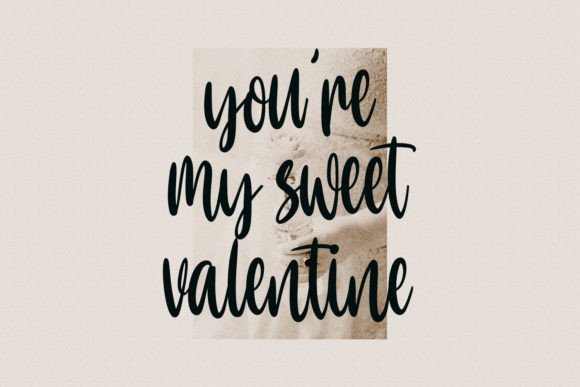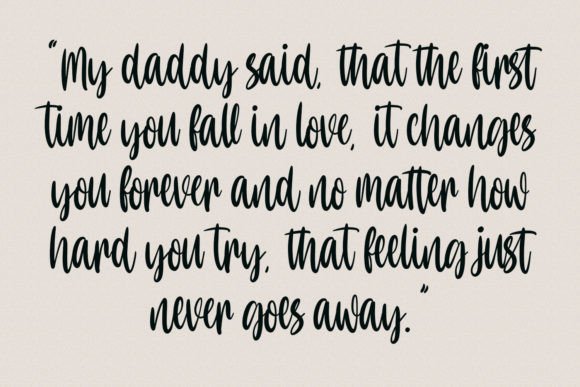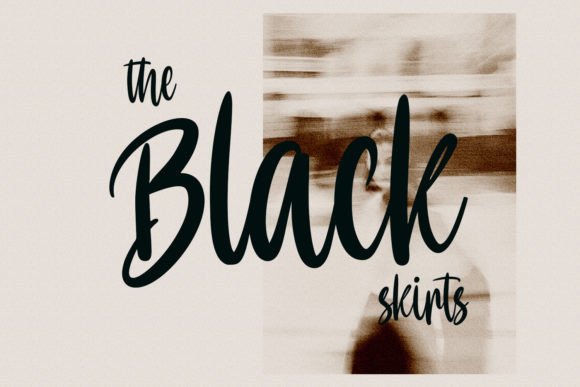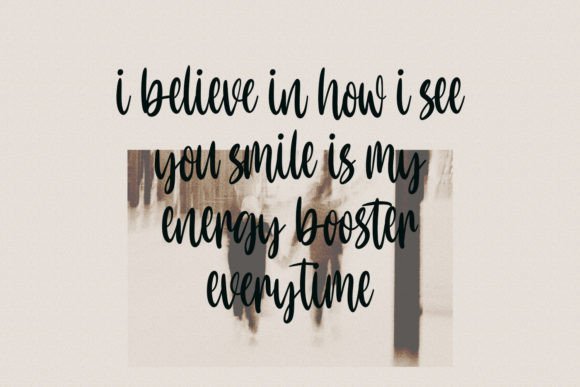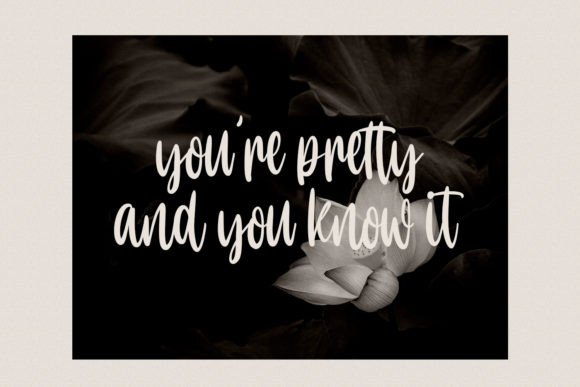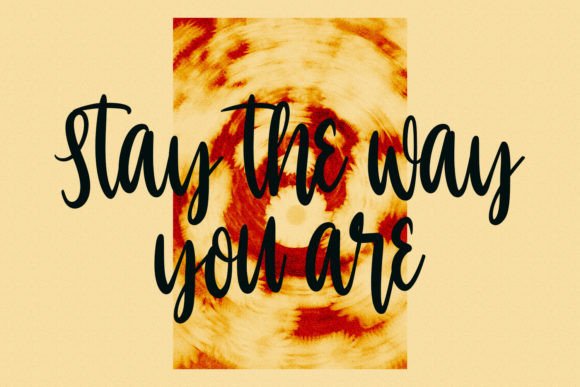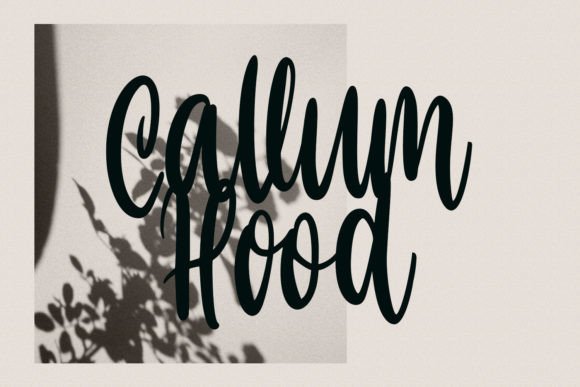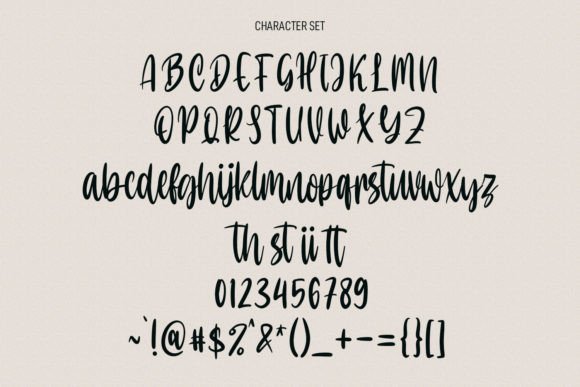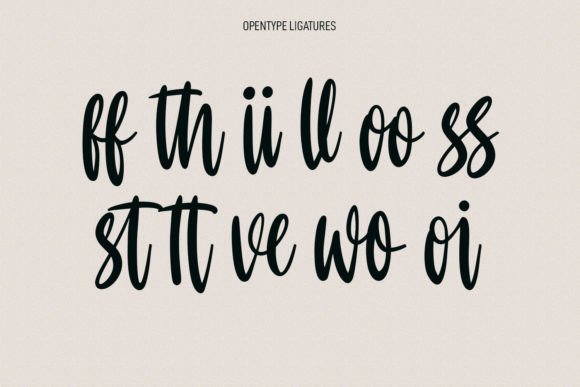
Olla Chester Font
About Olla Chester Font
“Olla Chester” is a modern and stylish handwritten script font that adds a touch of fashion and luxury to your design projects. With its elegant and fashionable appearance, this font is well-suited for creating chic and sophisticated designs, especially those targeting a luxury and feminine audience.
The font’s appeal lies in its ability to convey a sense of elegance and contemporary style. Its handwritten script style exudes a sense of grace and sophistication, making it an excellent choice for projects where you want to create a visually stunning and modern impression. “Olla Chester” allows you to infuse your designs with a touch of luxury and refinement.
Whether you’re designing for branding, fashion, beauty, or any project that demands a sleek and fashionable aesthetic, “Olla Chester” offers a versatile and attractive option. Its modern and stylish design ensures that it can complement a wide range of applications, helping your designs exude a sense of chic elegance.
In summary, “Olla Chester” is a modern and stylish handwritten script font that adds fashion and luxury to your creative projects. Its elegant and contemporary style makes it a valuable addition to your font collection. With “Olla Chester,” your designs will radiate a sense of sophistication and modernity, leaving a lasting and fashionable impression.